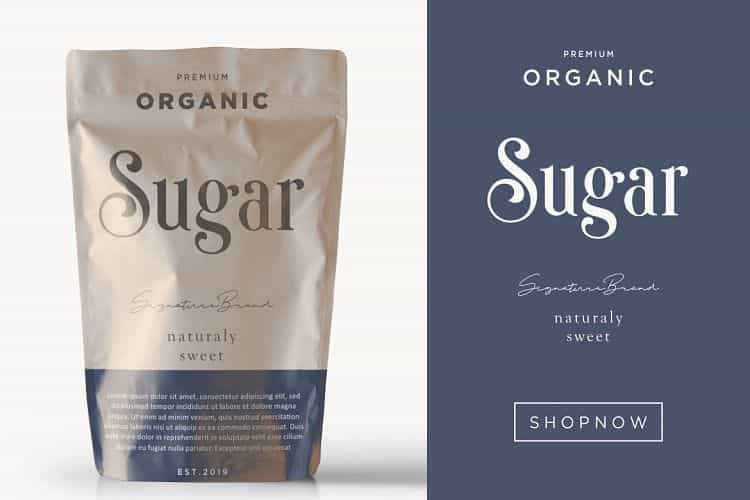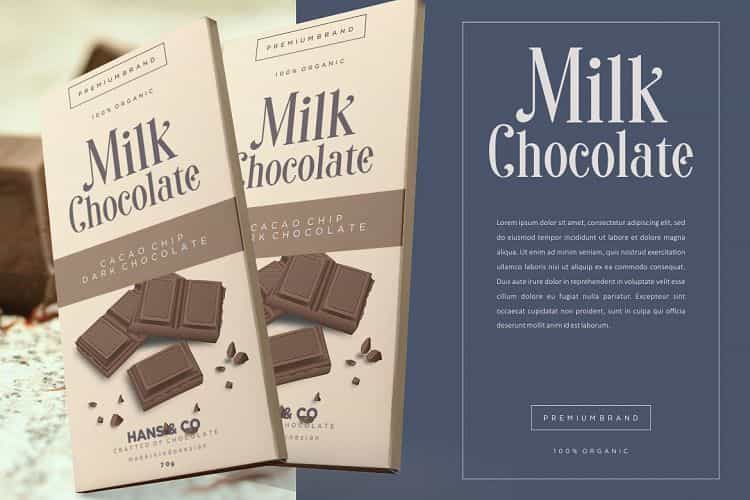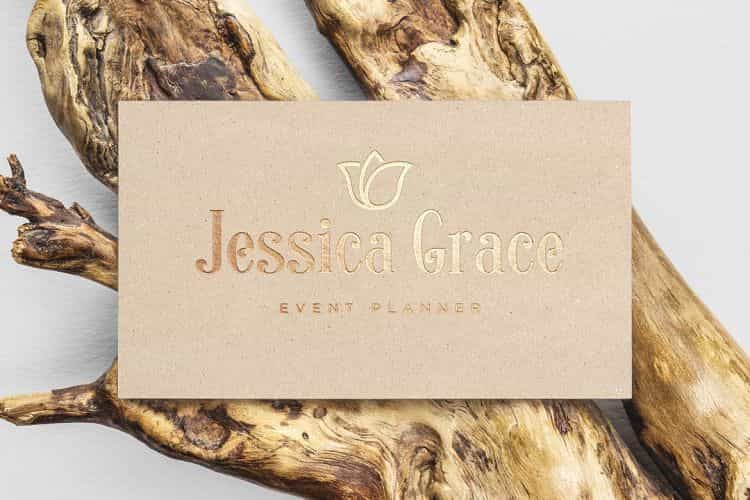
Introducing Sonia Font. It is created and posted by Hanscom and looks like this: It is an elegant serif font that was beautifully created with round circle tail to give a standard font type. It looks very much like an epitome of traditional and contemporary fashion at the same time.